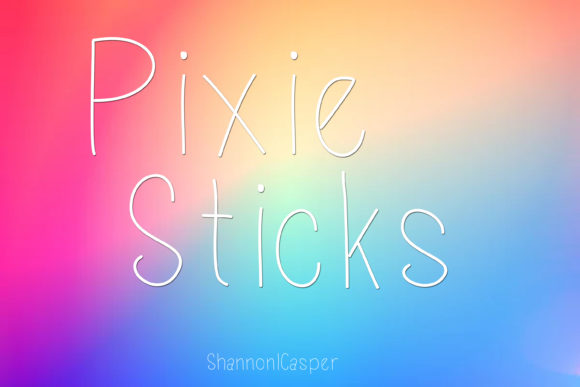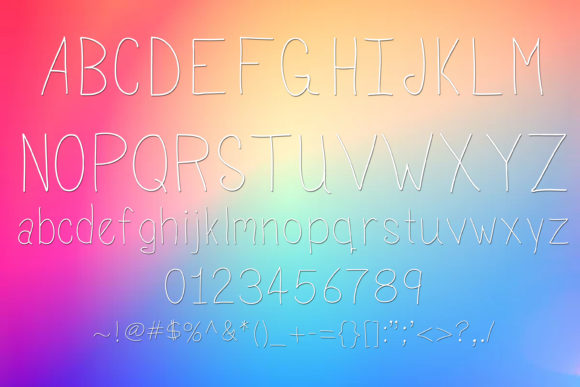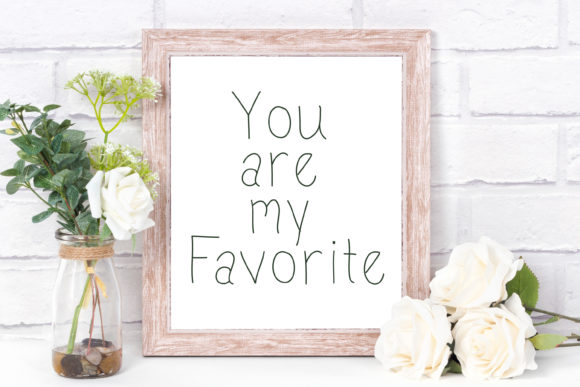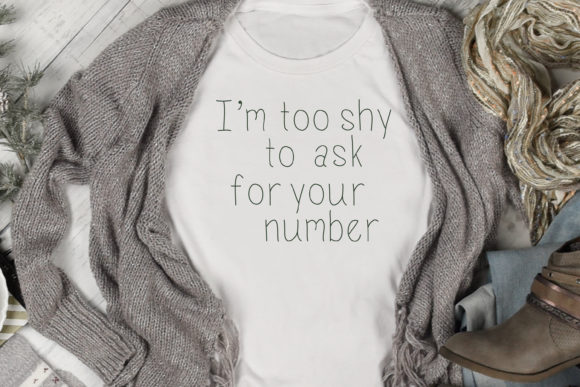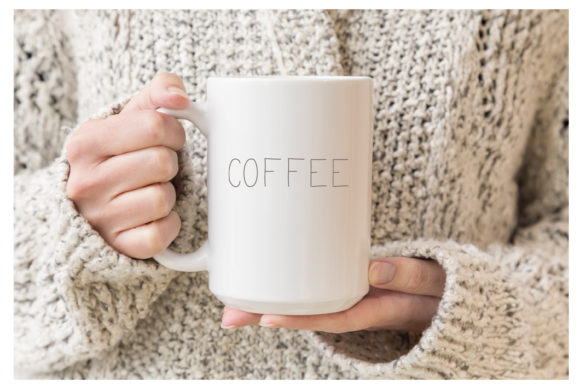
Pixie Sticks Font
About Pixie Sticks Font
Pixie Sticks is a quirky script font that will give your next projects extra personality.
This font can be used in a wide variety of applications from logos, postcards, to posters – the only limit is your imagination!